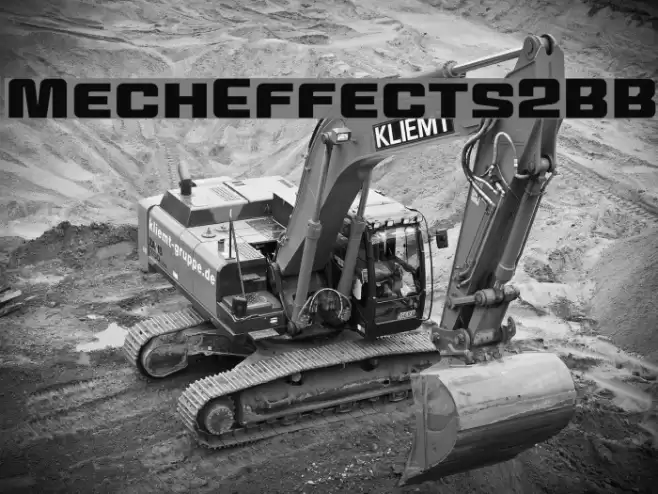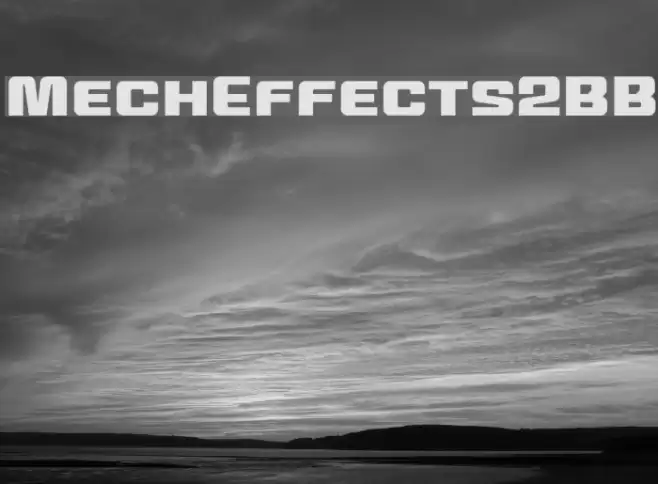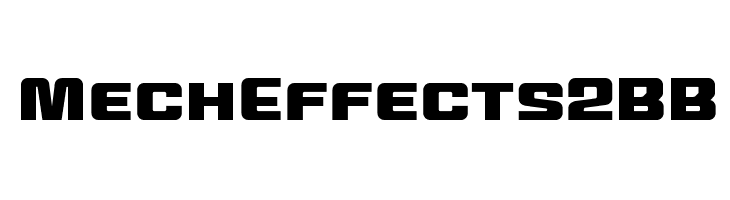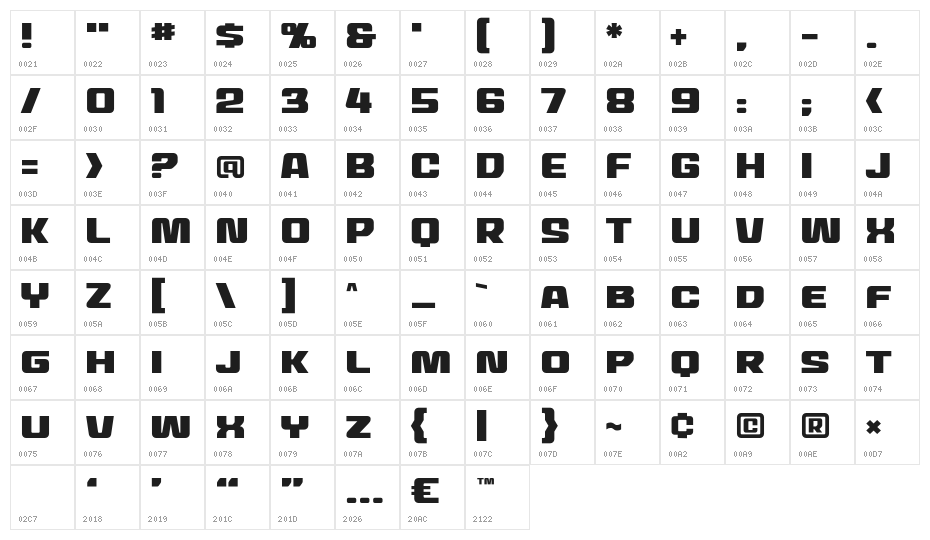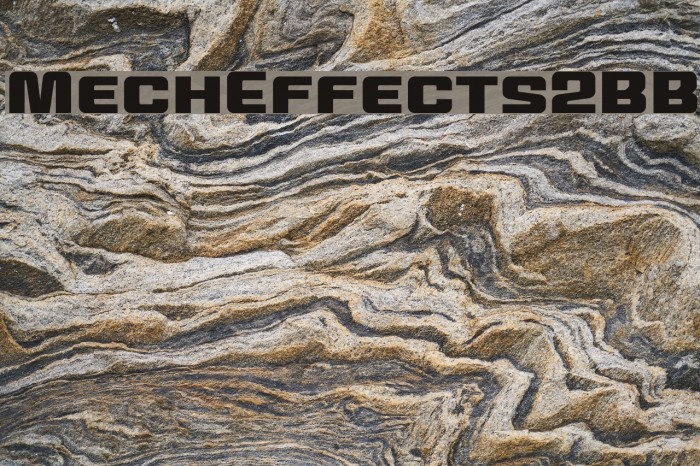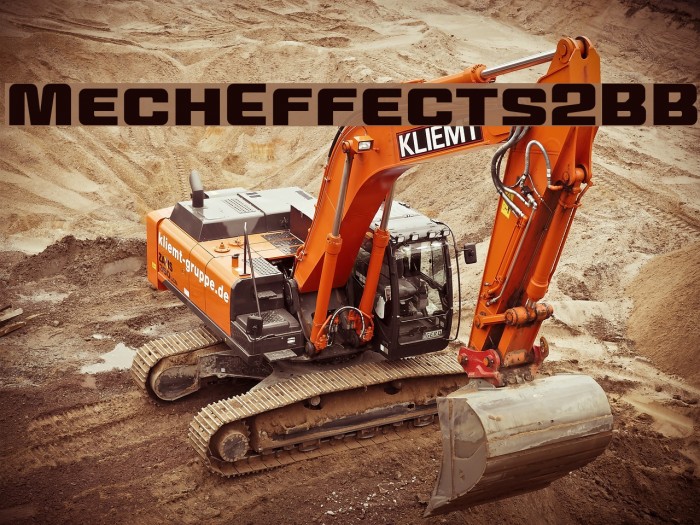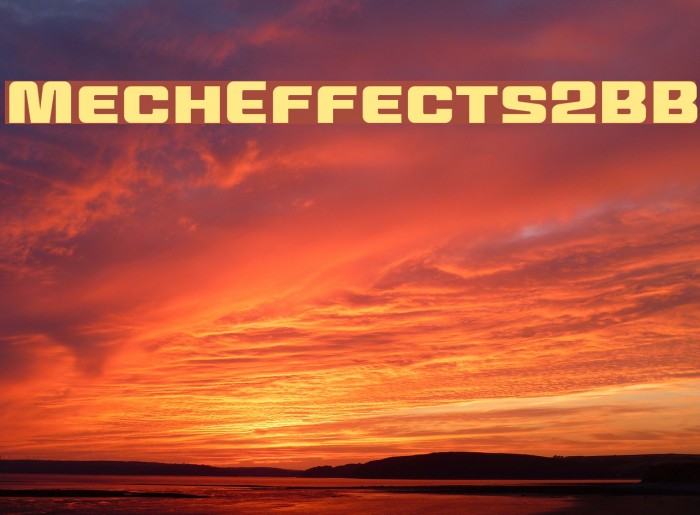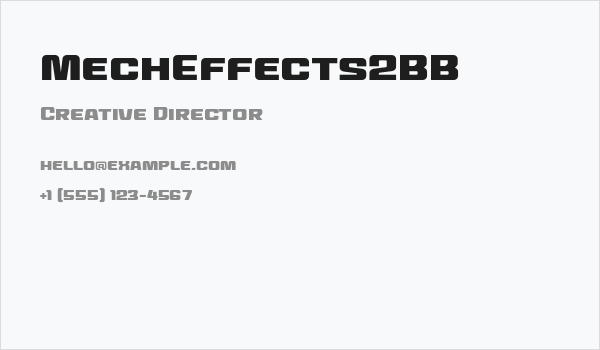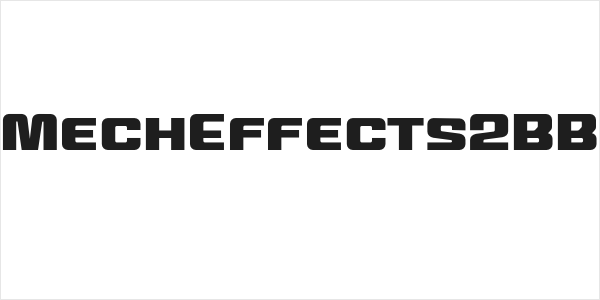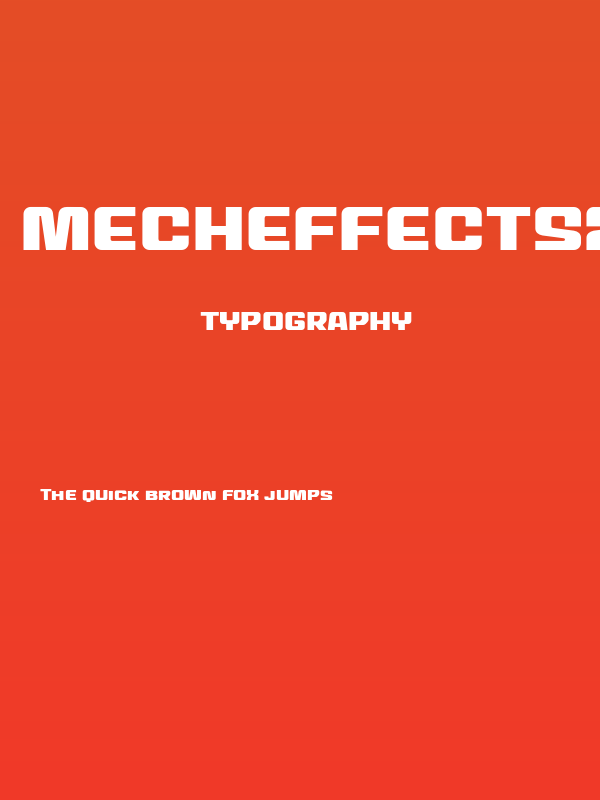
MechEffects2BB Font
MechEffects2BB Description
This font exhibits a bold and robust design, characterized by thick, block-like letters with a futuristic and mechanical aesthetic. The uppercase and lowercase letters maintain a consistent width, contributing to a uniform appearance. The numbers and special characters are designed to match the boldness of the alphabet, ensuring a cohesive look across all characters. The font's geometric shapes and sharp angles give it a modern and industrial feel, making it suitable for projects that require a strong and impactful visual presence. The character spacing is tight, enhancing the compact and solid nature of the font.
A bold, futuristic font with a mechanical and industrial aesthetic from Uncategorized fonts.
- Proposed Projects: Ideal for technology branding, video game titles, sci-fi movie posters, and industrial-themed designs.
- Character Spacing: Tight
- Use Case: Logos, Headlines